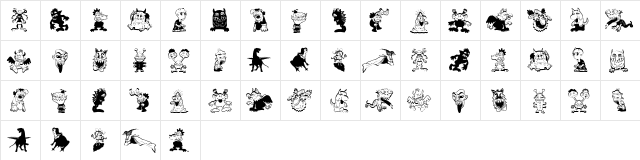
Monstrous Regular
Design Context for Monstrous Typeface
Monstrous is a composed and adaptable typeface that performs quietly and consistently across a wide range of design contexts.